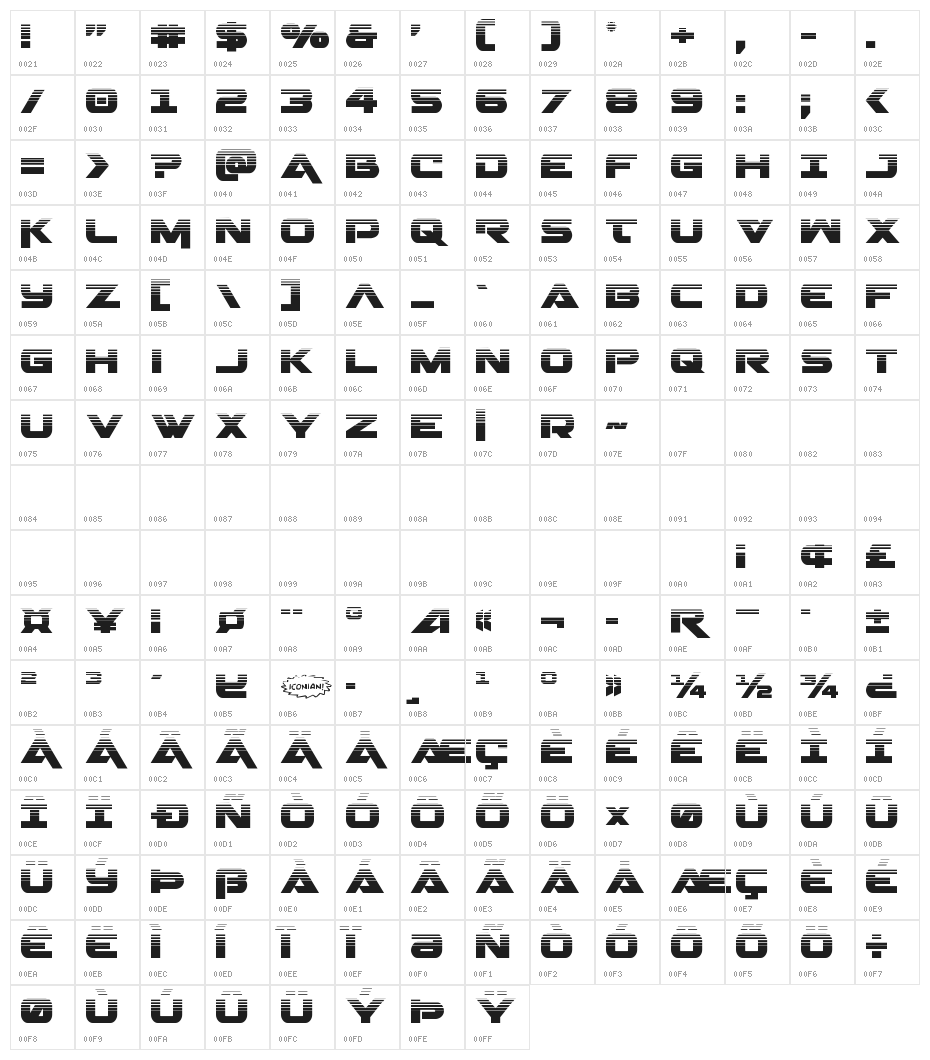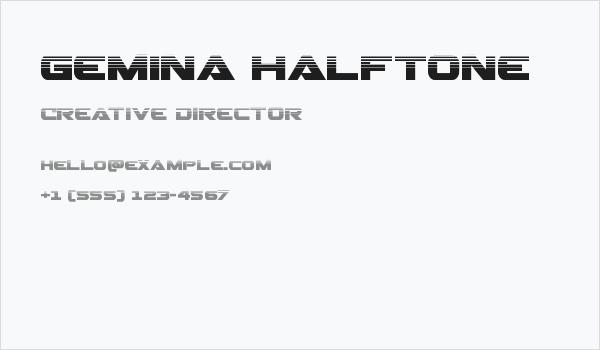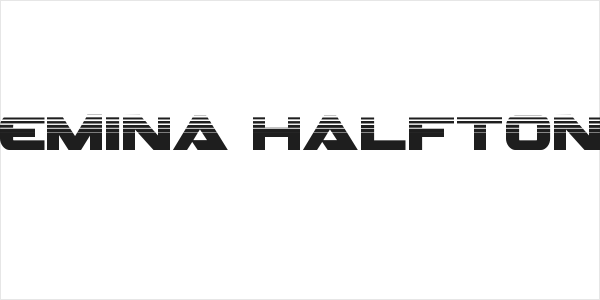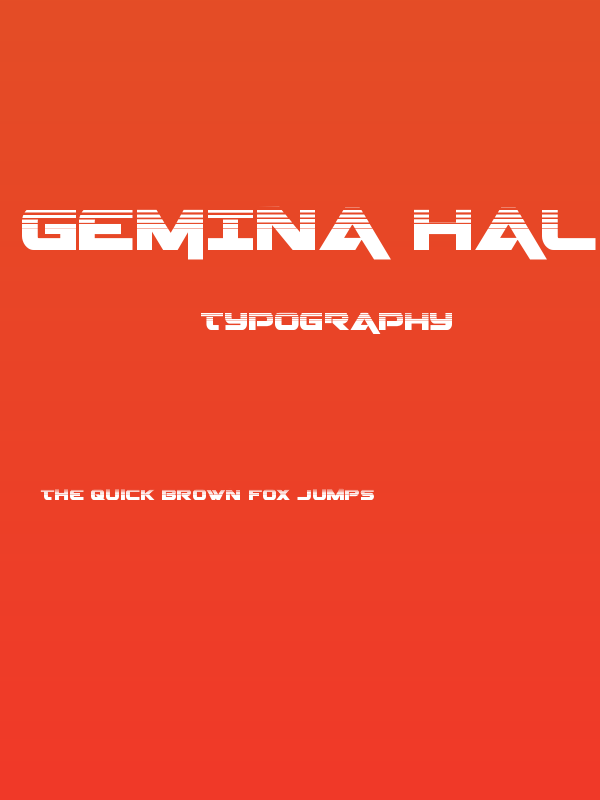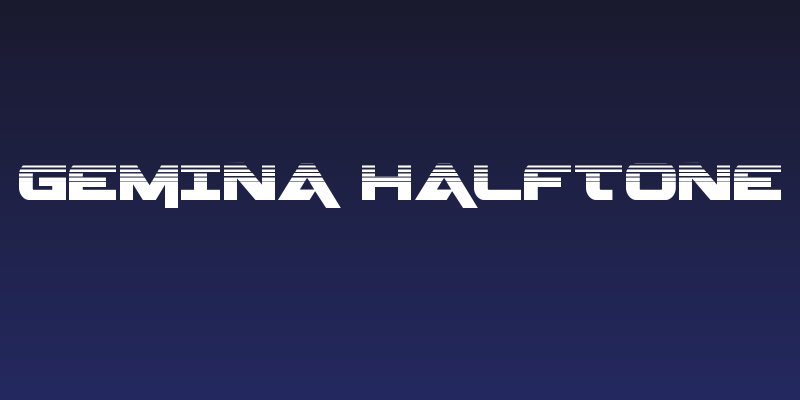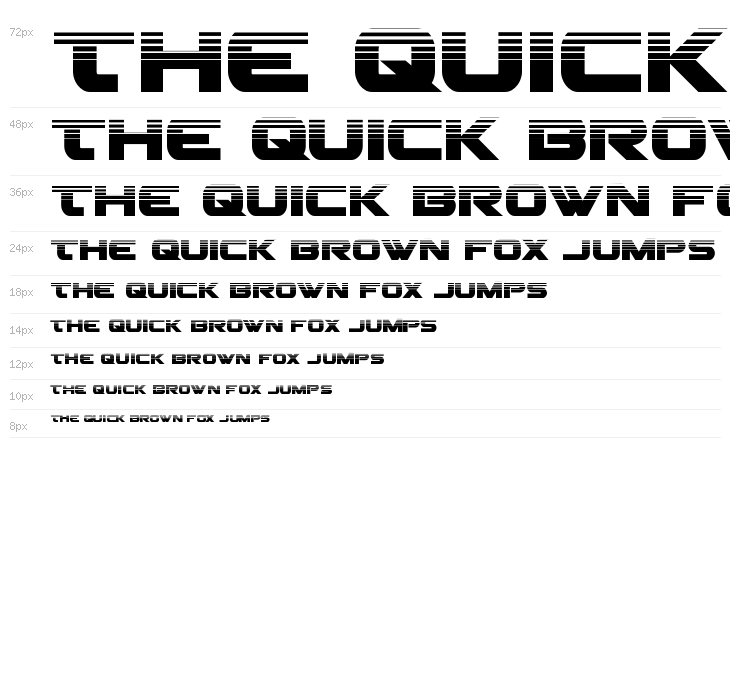
Gemina Halftone Font
Gemina Halftone Description
This font features a bold, futuristic design with a halftone effect that gives it a unique, digital appearance. The characters are constructed with a combination of solid and striped patterns, creating a sense of movement and depth. The uppercase letters are particularly striking, with angular cuts and a geometric structure that enhances the modern aesthetic. The numbers and special characters maintain this style, ensuring consistency across all glyphs. This font is ideal for projects that require a strong, contemporary look, such as technology branding, sci-fi themes, or digital artwork.
| Proposed Projects | Ideal for technology branding, sci-fi themes, digital artwork, and modern posters. |